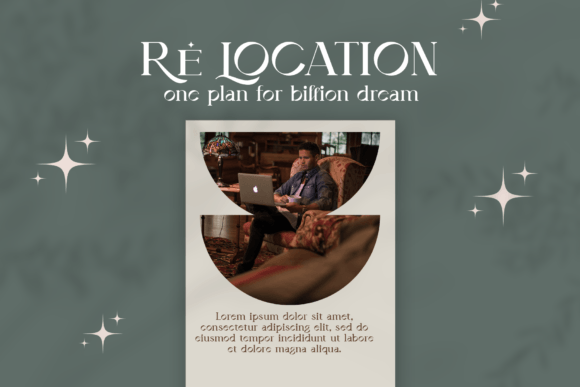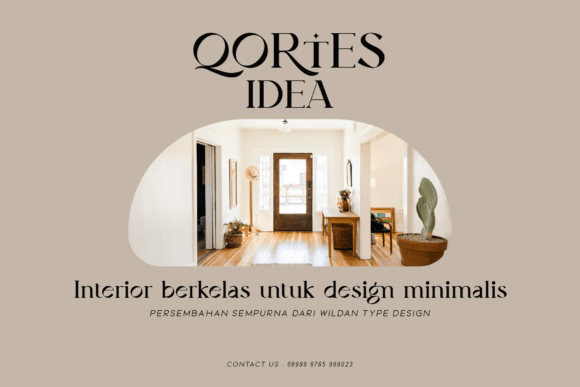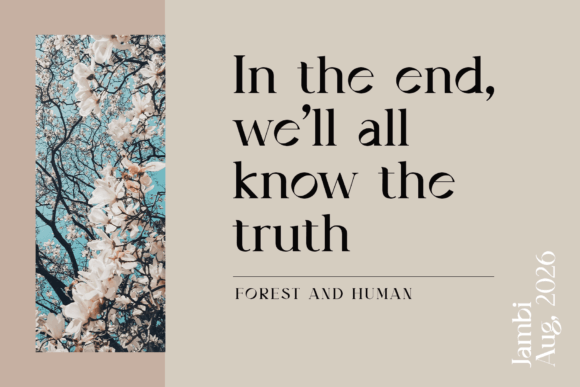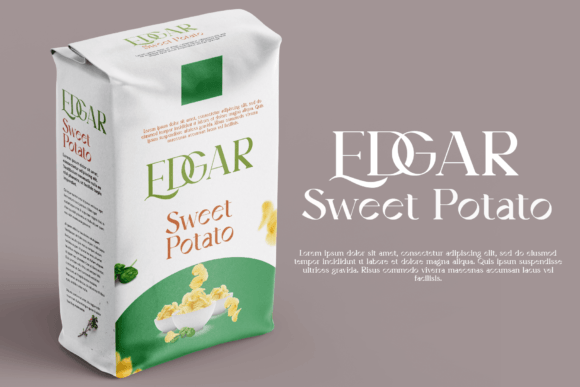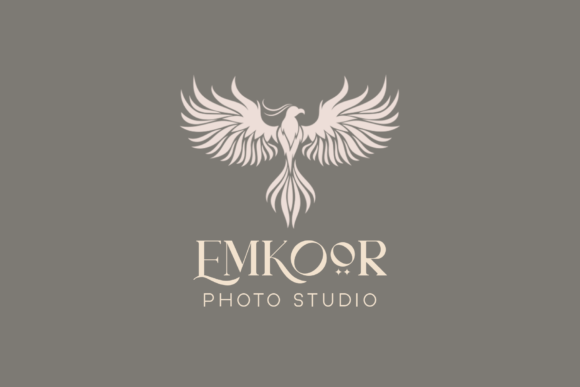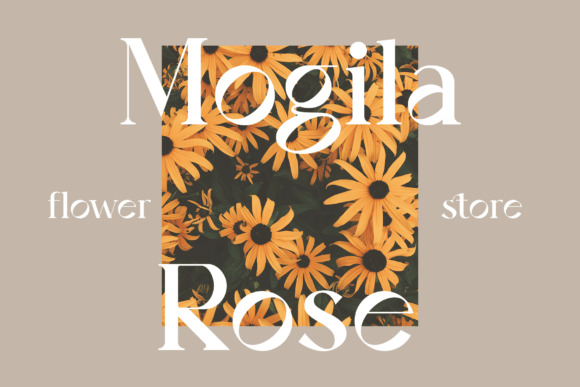
Reviving Creativity with the Airy Restoration Font
Do you remember the moment when you stumbled upon a font that perfectly captured the essence of your project? The thrill of discovery, the spark of inspiration – it’s a feeling that every designer can relate to. For many, this moment came in 2022 with the birth of the Airy Restoration Font, a stylish modern serif typeface that embodies the spirit of a new era.
The Airy Restoration Font is more than just a stylish addition to your designs; it’s a versatile tool that can elevate any project. Whether you’re working on editorial projects, logo designs, or product packaging, this font is sure to impress. Its clean lines, elegant curves, and sophisticated feel make it an invaluable asset for designers looking to create visually stunning work.
With the Airy Restoration Font, you can breathe new life into your designs and make a lasting impression on your audience. Its unique blend of style and functionality makes it a valuable addition to any designer’s toolkit, and its versatility ensures that it will remain a trusted companion for years to come.
- Font Family: Airy Restoration Font is a part of the Airy Font family, designed to evoke a sense of elegance and sophistication.
- Unique Characteristics: Airy Restoration Font features a unique blend of modern and vintage elements, with intricate details and subtle texture, creating a distinctive and eye-catching appearance.
- Font Style: The font is available in both regular and italic styles, providing flexibility for designers to create a range of visual effects and emphasis.
Designer Review: Airy Restoration Font
First impressions matter, and Airy Restoration Font has certainly made an impact. Its ✨ elegant lines and refined curves evoke a sense of sophistication, making it perfect for high-end branding and design projects.
The font’s ✨ versatility is another notable aspect, as it can be used for both digital and print applications without compromising its aesthetic appeal. The Airy Restoration Font’s ✨ clean and modern design makes it a great choice for designers who want to create a sleek and professional look.
- ✨ Elegant and refined lines
- ✨ Versatile for digital and print applications
- ✨ Clean and modern design
- ✨ Suitable for high-end branding and design projects
- ⚠️ Limited character set, which may be a concern for designers who need a wide range of characters
- ⚠️ May not be suitable for projects that require a more playful or casual tone
Overall, I’m impressed with the Airy Restoration Font’s potential. While it may have some limitations, its ✨ elegant design and ✨ versatility make it a great choice for designers who want to create a professional and sophisticated look. However, it’s essential to consider the project’s specific requirements before choosing this font.
For best results, use the Airy Restoration Font for titles, headings, and other emphasis text. Experiment with different font sizes and colors to create visual interest.
The Airy Restoration Font is ideal for:
- Photography captions and quotes
- Travel and adventure branding
- Vintage-inspired design projects